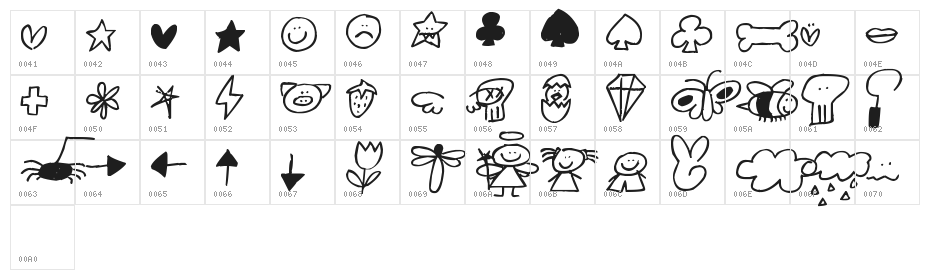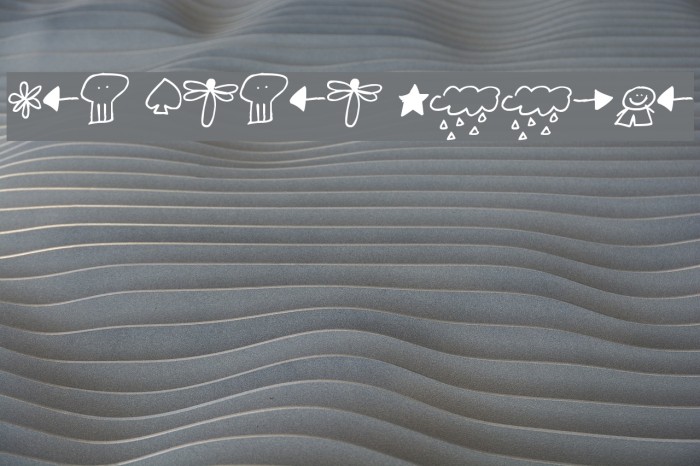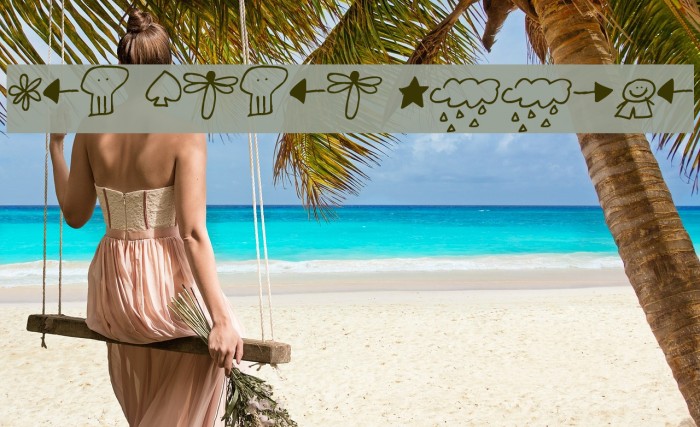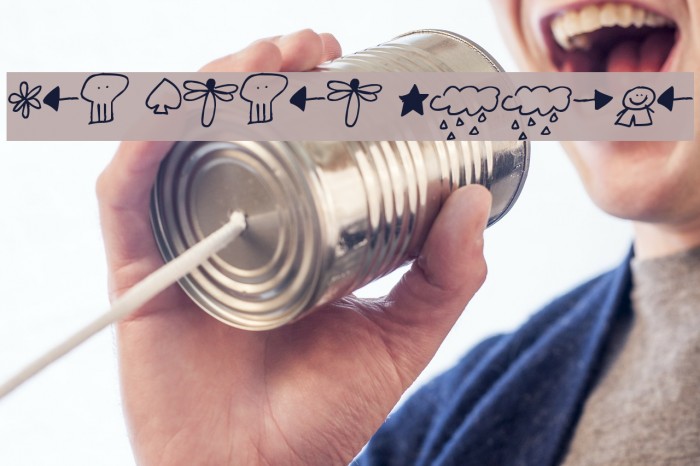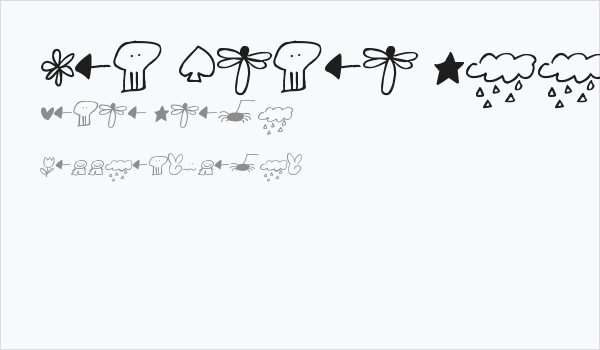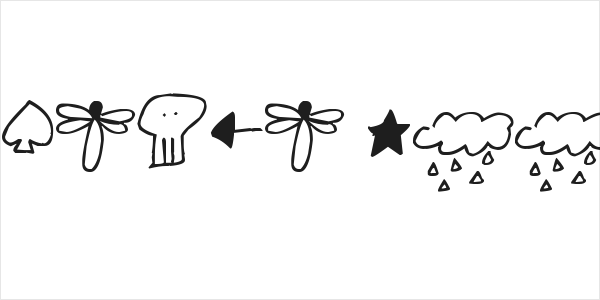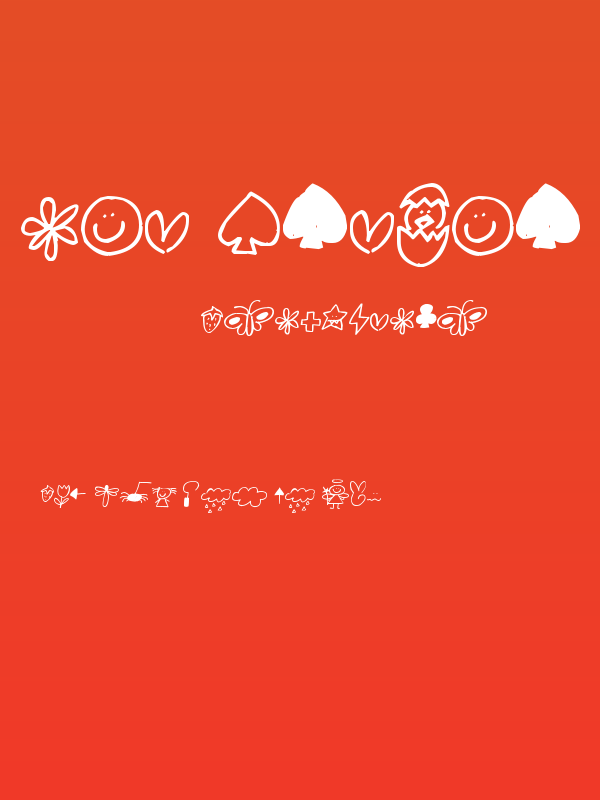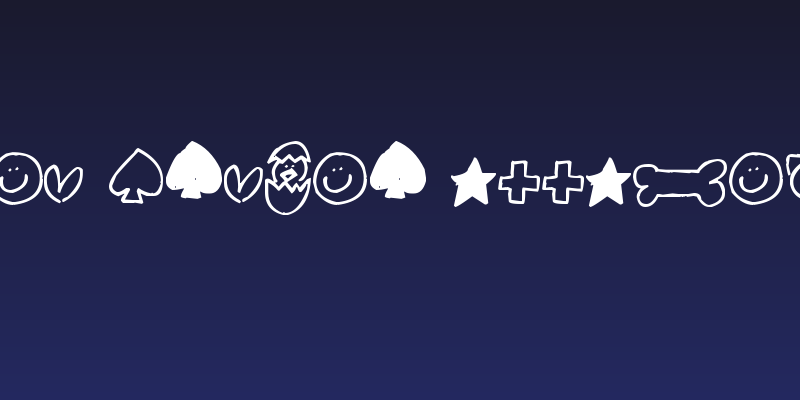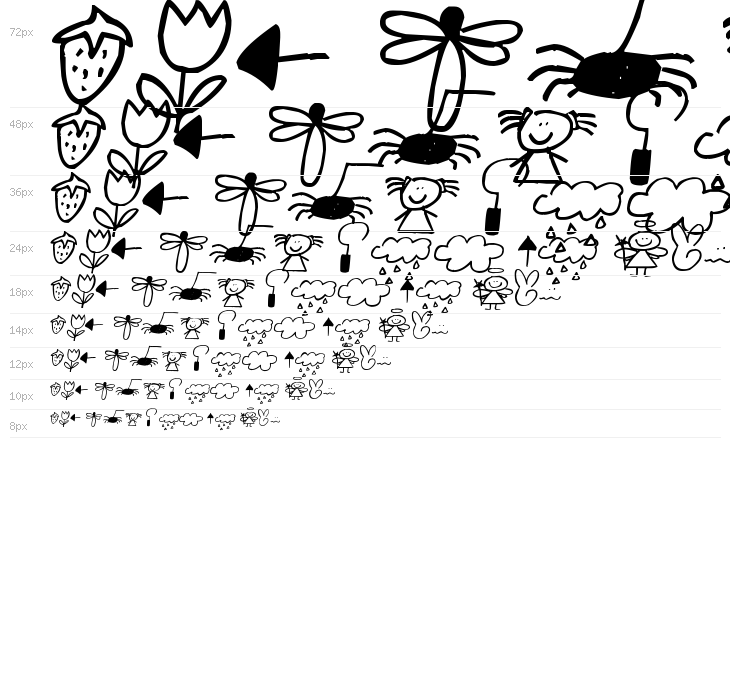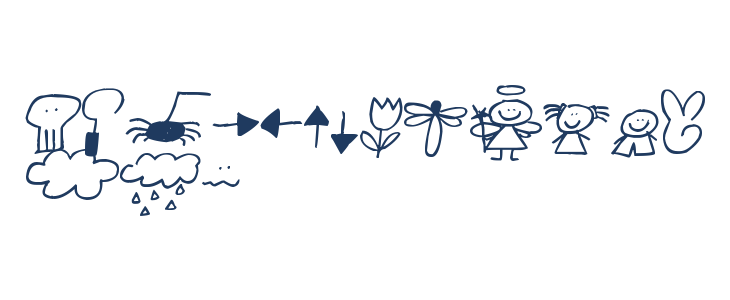
Pea Jiawei Doodles Font
Pea Jiawei Doodles Description
This collection features a whimsical array of doodles, each with a playful and hand-drawn aesthetic. The designs include a variety of symbols such as hearts, stars, smiley faces, and playful animals, each rendered with a casual and carefree line quality. The doodles are characterized by their bold strokes and simple, yet expressive forms, making them ideal for adding a touch of fun and creativity to any project. The style is reminiscent of spontaneous sketches, capturing the essence of lightheartedness and imagination.
| Overall Style | Whimsical |
| Use Case | Decorative elements, Illustrations, Branding |
| Proposed Projects | Ideal for children's book illustrations, playful greeting cards, creative social media graphics, and whimsical branding projects. |